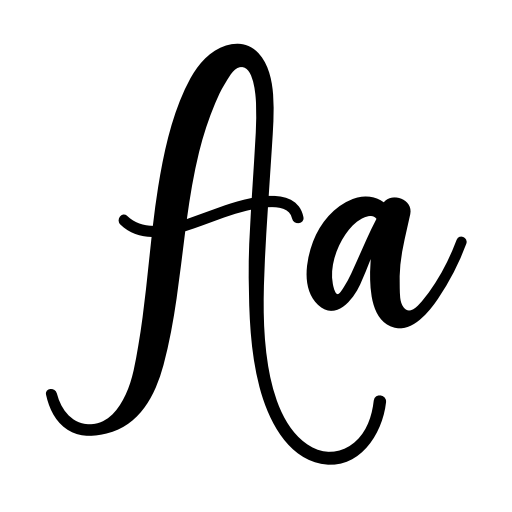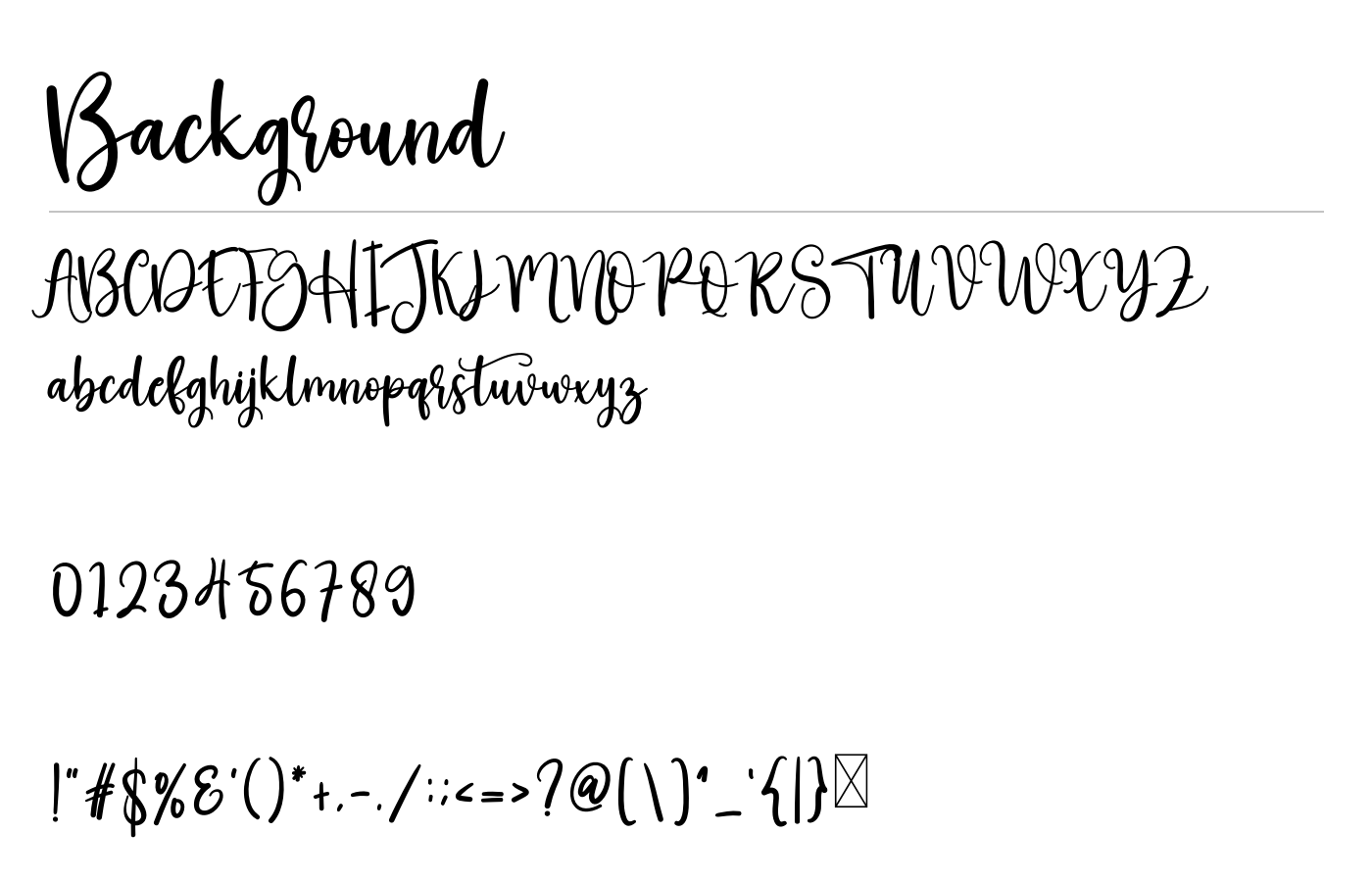
Background Font is a lively and playful script typeface with a hand-drawn feel, featuring smooth, flowing strokes and delicate variations in thickness. Its casual yet elegant style makes it perfect for creative branding, invitations, and social media graphics where a personal, friendly touch is desired. This font stands out in designs that need warmth and charm without sacrificing readability.
Background Font
About Background Font